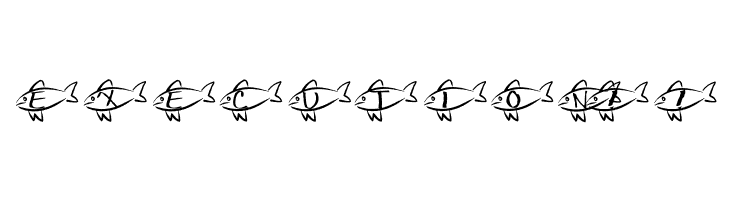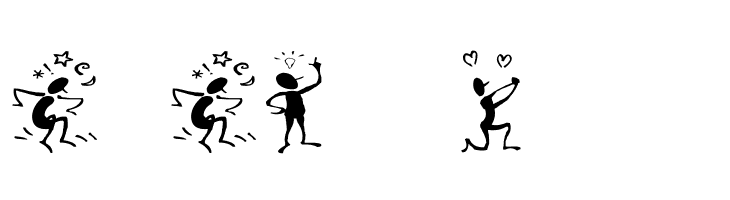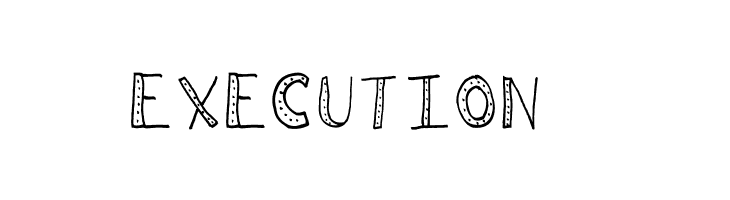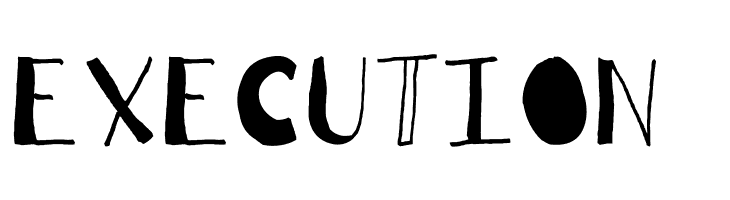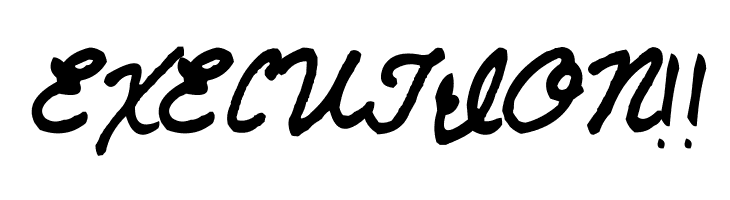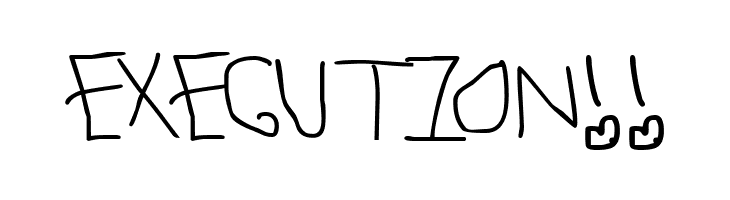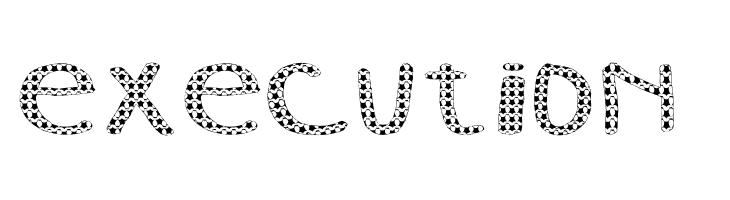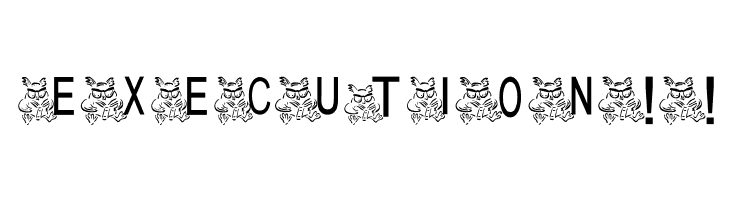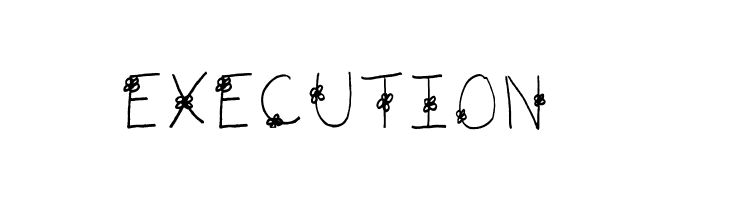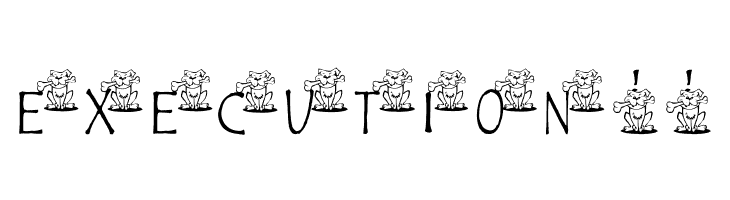
• AEZ owlness
A bold sans-serif font with whimsical owl illustrations accompanying each letter.
• AEZ Owls for Traci
A collection of owl-themed decorative glyphs.
• AEZ puppy dog
A playful font with letters inside dog head silhouettes, perfect for pet-themed designs.
• AEZ ruff, ruff
A whimsical font with cartoon dogs accompanying each character, perfect for playful designs.
• AEZ scrapbooking dings
A playful set of dingbat symbols themed around scrapbooking and crafting tools.
• AEZ scripty
An expressive, script-like font with a dynamic, hand-drawn appearance.
• AEZ scripty 2
An elegant and artistic script font with flowing, intricate letterforms and decorative flourishes.
• AEZ seascape
A decorative font with a lighthouse motif integrated into each letter, ideal for nautical themes.
• AEZ segar
A playful, handwritten font with whimsical and irregular strokes.
• AEZ snowman
A playful font with characters inside snowman faces, ideal for festive designs.
• AEZ spooky
A whimsical, spooky-themed font with bat motifs and decorative elements.
• AEZ steeple
A modern, playful font with bold characters and high contrast.
• AEZ sunflower letters
A decorative font with bold letters integrated with sunflower illustrations.
• AEZ sweethearts
A playful, hand-drawn font with whimsical, cartoonish elements.
• AEZ swim away
A whimsical font with characters inside fish shapes, perfect for playful designs.
• AEZ toy dolls
Whimsical display font using doll silhouettes as characters.
• AEZ Traci's Handwriting
A cursive, handwritten-style font with fluid, connected letters and dynamic stroke variations.
• AEZ Transportation 2005
A pictogram font featuring various transportation vehicles.
• AEZ Vanity
Whimsical dingbat font with fairy illustrations.
• AEZhearts
A playful, heart-adorned font with a hand-drawn style.